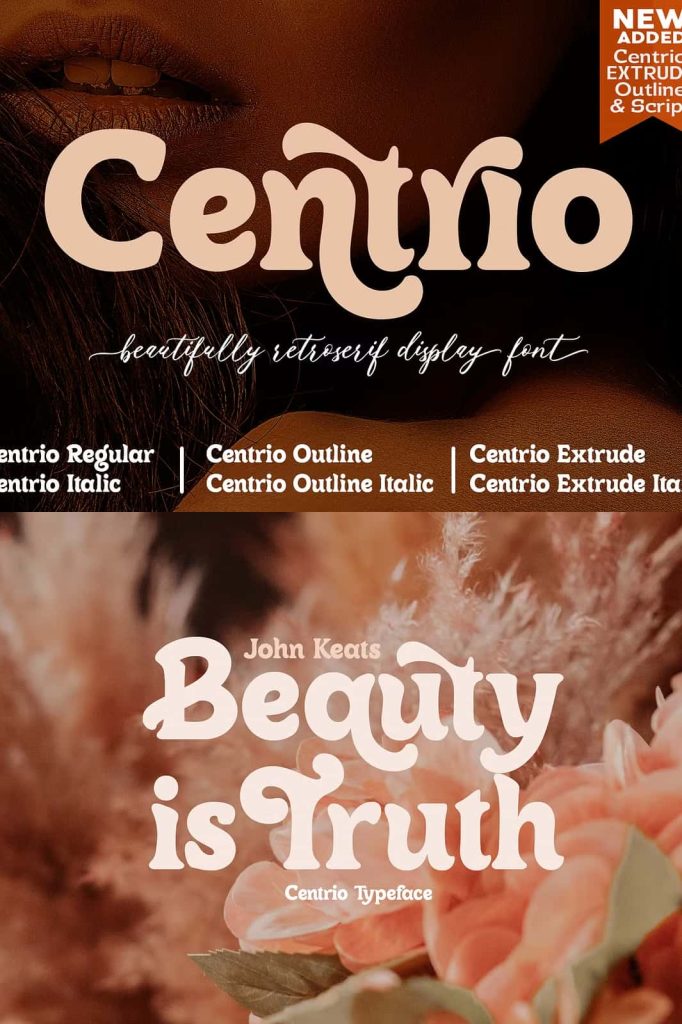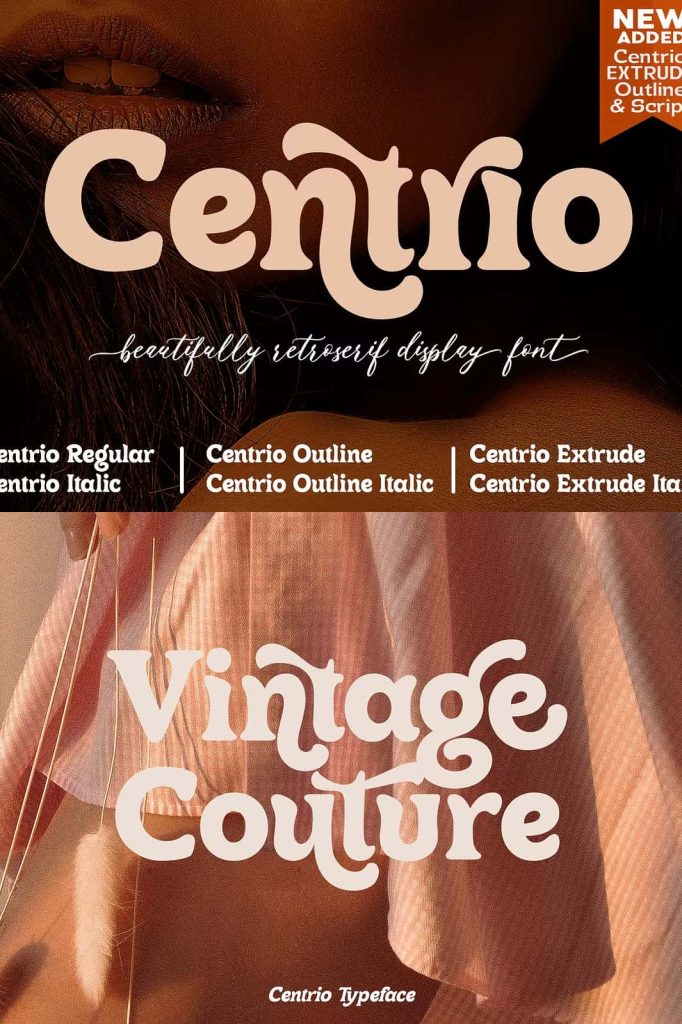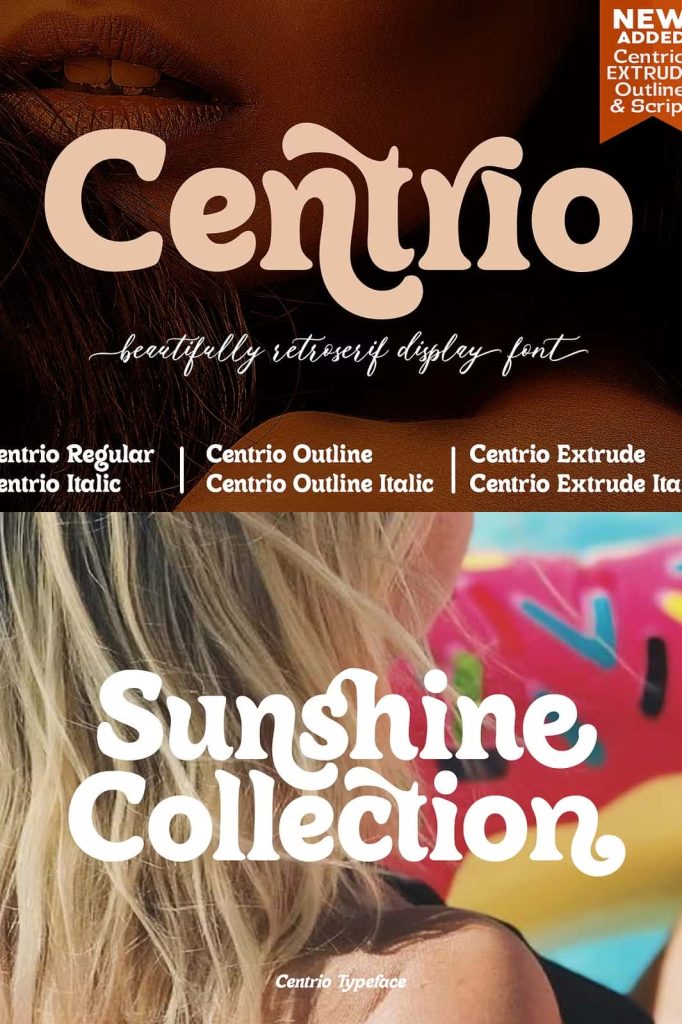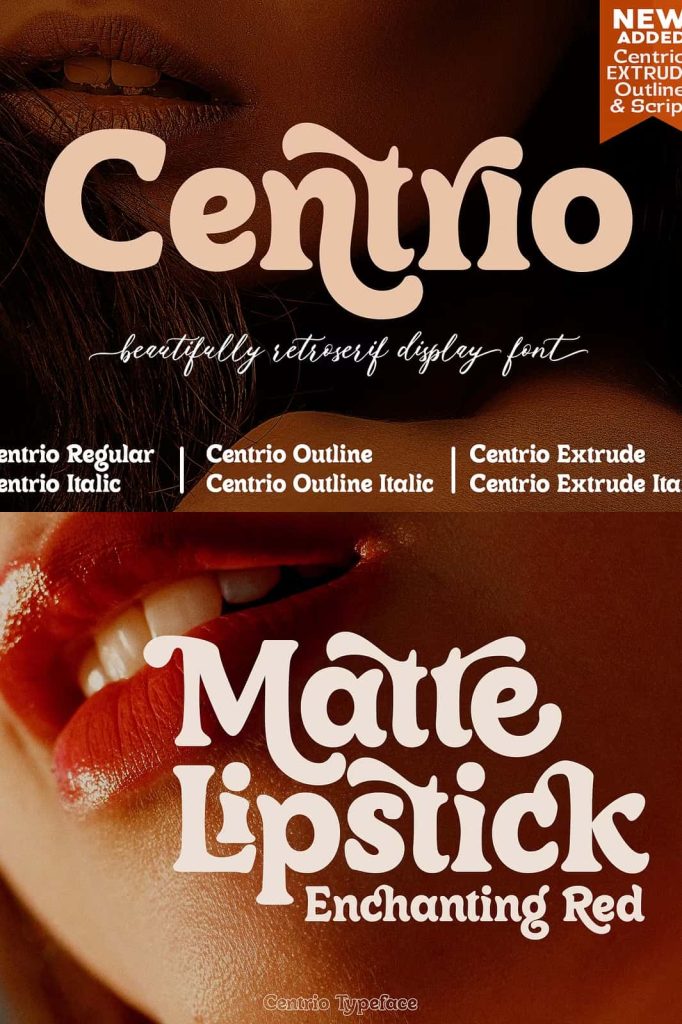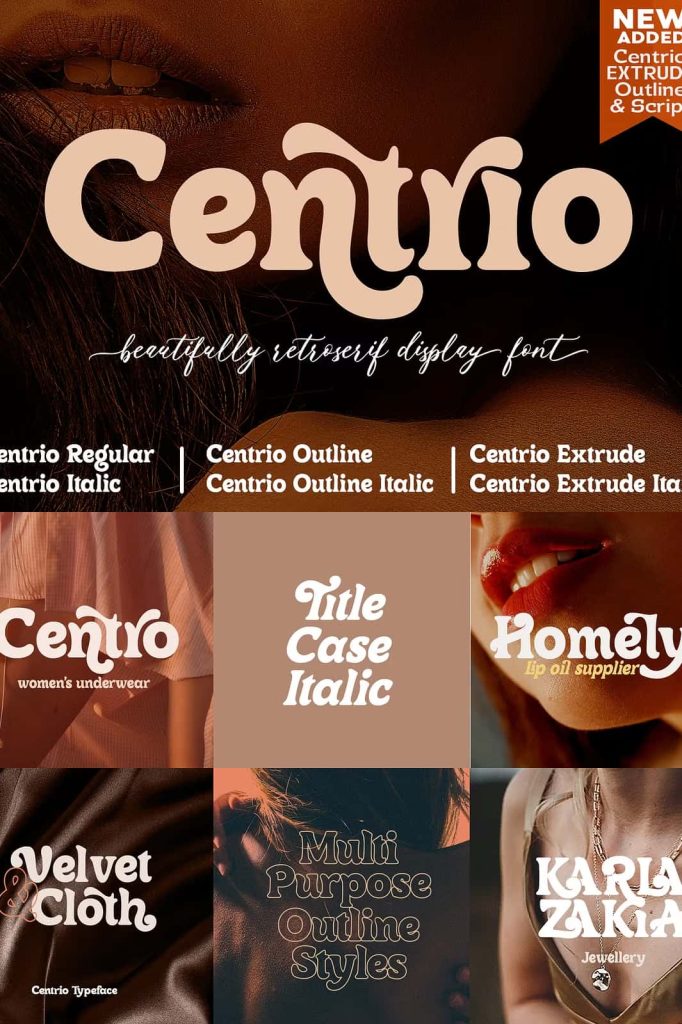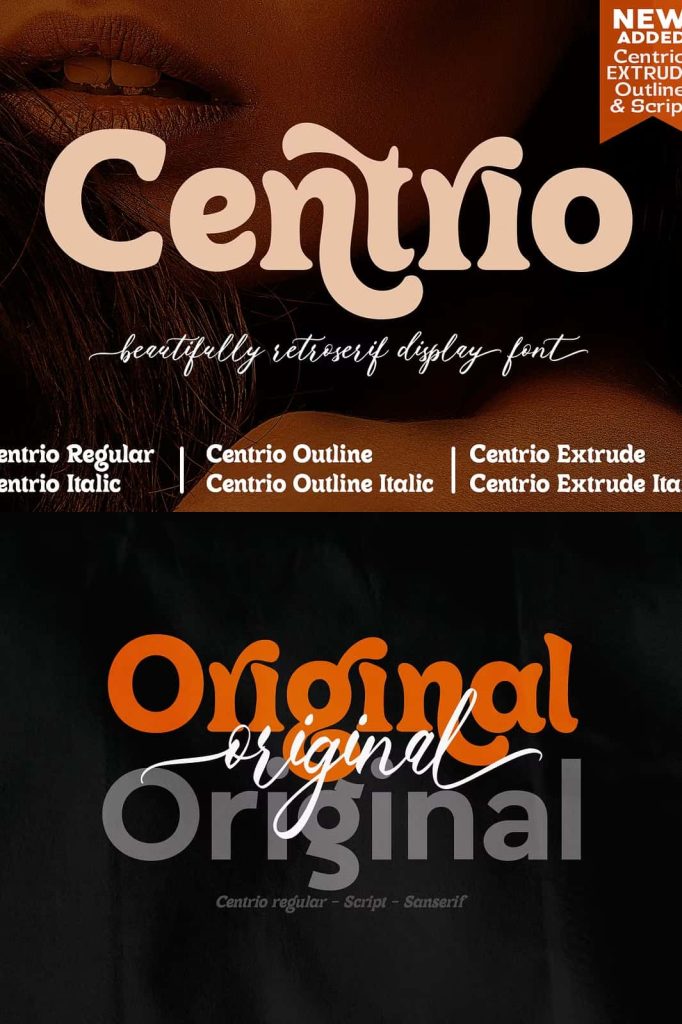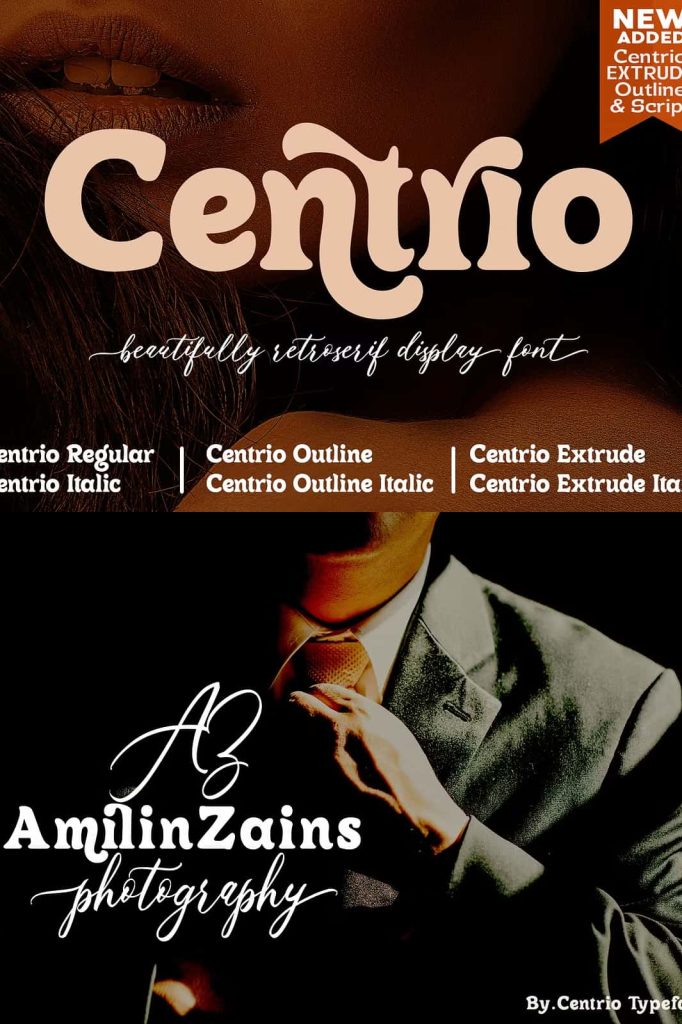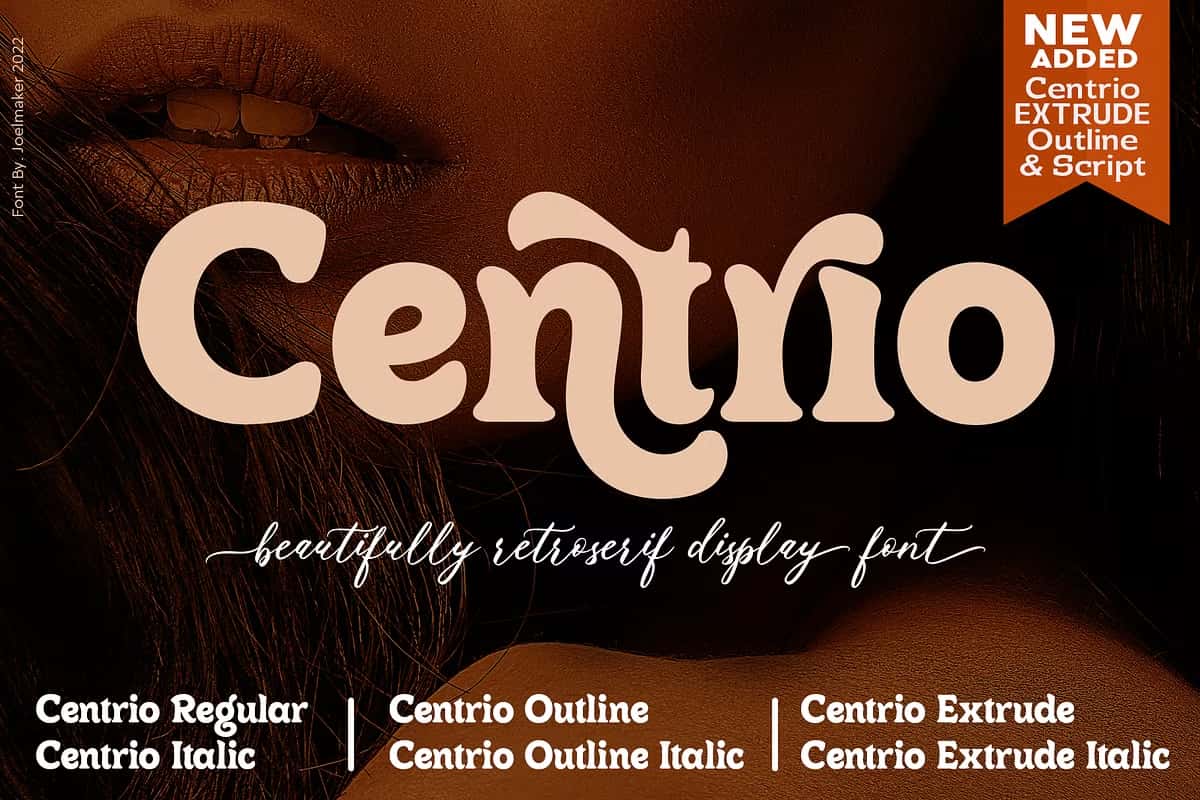
Centrio TypefacedezzignerJuly 12, 2024Fonts Centrio Typeface retro with an artistic touch elegant modern yet vintage the as well as a unique blend of ligatures a letter Download